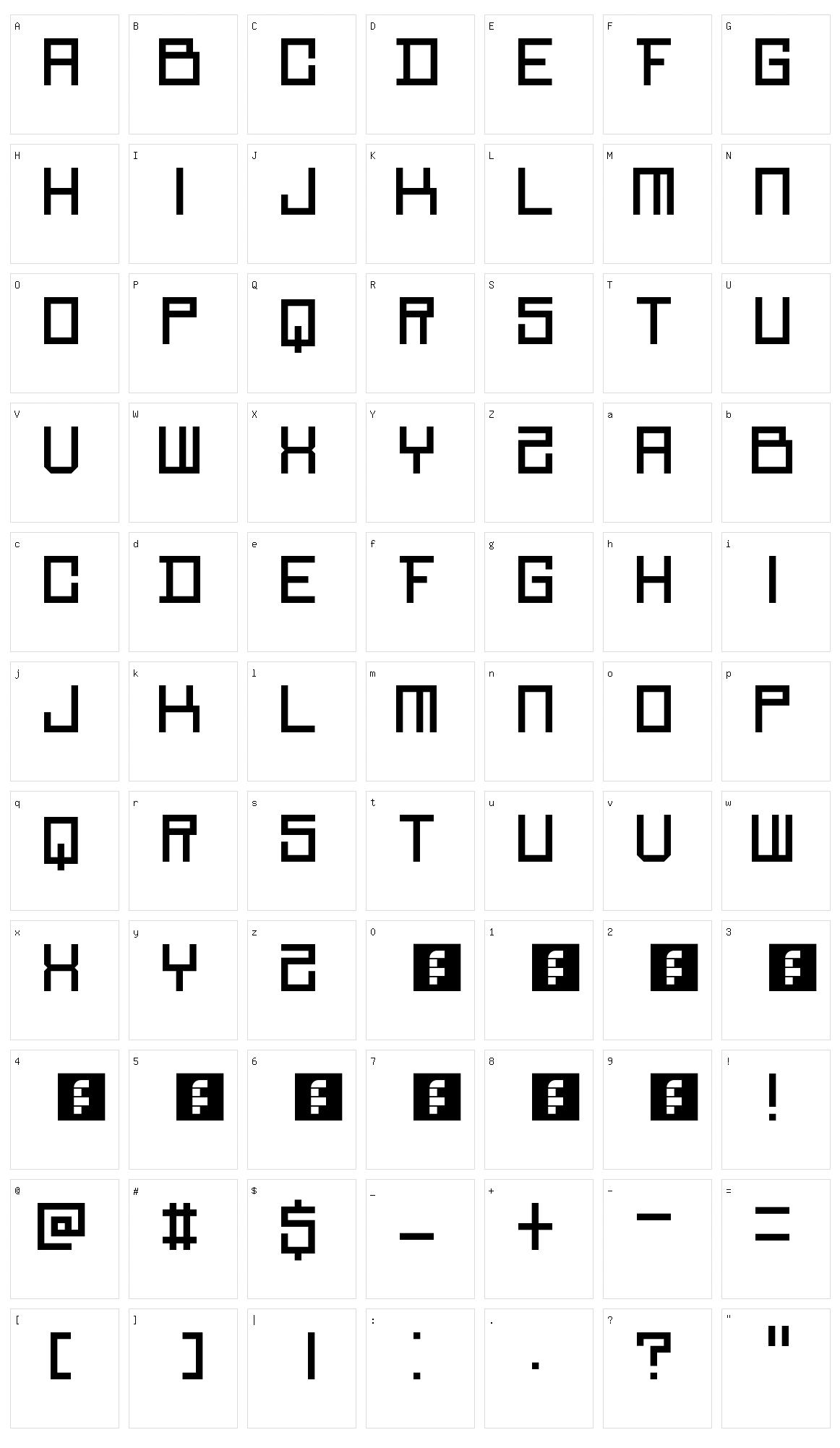
The free font Red Mamba is carefully designed by Jorge G. Chevere, showcasing a thoughtful balance of creativity and usability and belongs to the Bitmap font family. When you download the ZIP file, it contains only 3.68 KB of font files, making it lightweight and quick to download. Please review the license details below to understand permitted usage and distribution rights. If license information is not available, we recommend using this font for personal projects only or contacting the author directly for commercial usage permissions.